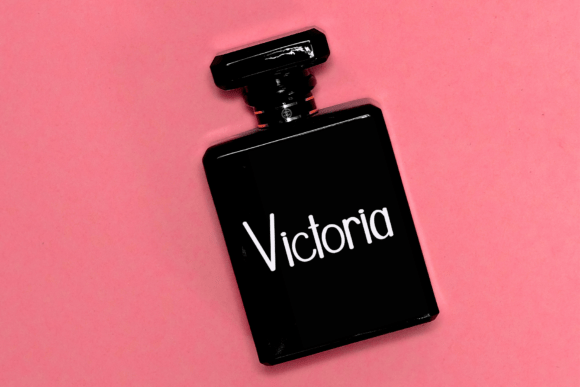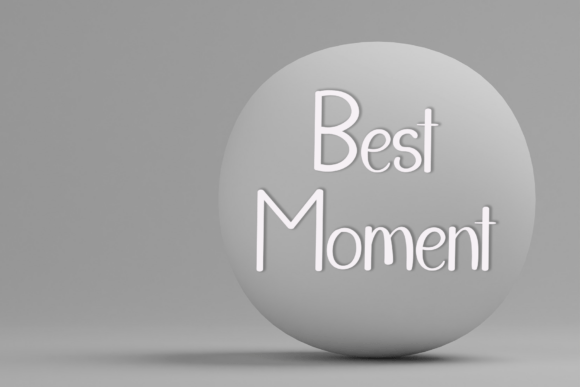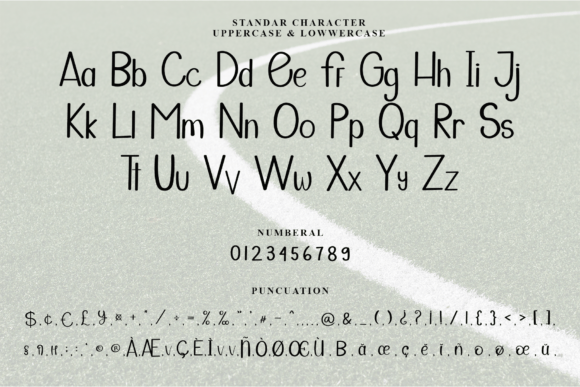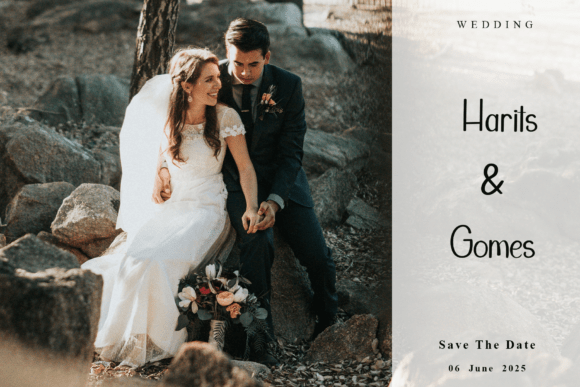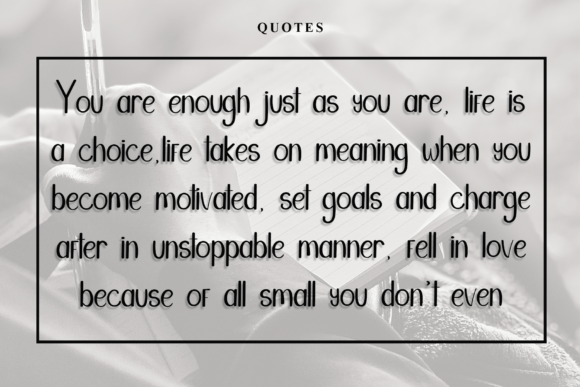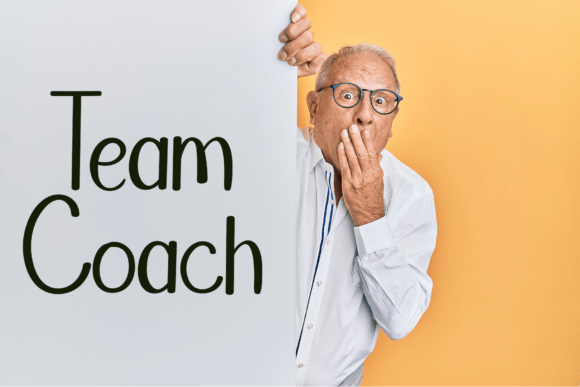
Introducing Football Font: The Perfect Handwritten Font for Your Next Project
Are you looking for a font that can add a simple and natural feel to your next project? Look no further than Football Font, a versatile handwritten font that is perfect for a wide range of applications. From greeting cards to headlines, Football Font is guaranteed to bring a touch of warmth and personality to your designs.
What is Football Font?
Football Font is a simple handwritten font that is designed to be easy to read and versatile. Its clean and natural lines make it perfect for use in a variety of contexts, from formal to informal. The font has a friendly and approachable feel, making it ideal for designers and crafters who want to add a personal touch to their work.
Key Features of Football Font
- Handwritten style: Football Font has a beautiful handwritten style that gives it a personal and unique feel.
- Versatile: The font is versatile and can be used in a wide range of applications, from greeting cards to headlines.
- Easy to read: Football Font is designed to be easy to read, making it perfect for use in body text or headlines.
- Simple and natural feel: The font has a simple and natural feel that makes it perfect for designers and crafters who want to add a touch of warmth to their work.
Applications of Football Font
Football Font is a versatile font that can be used in a wide range of applications, including:
- Greeting cards: Add a personal touch to your greeting cards with Football Font.
- Headlines: Use Football Font to add a touch of warmth and personality to your headlines.
- Body text: Football Font is easy to read and can be used in body text to add a personal touch to your work.
- Signage: The font is perfect for use in signage, including menus, posters, and flyers.
- Digital media: Football Font can be used in digital media, including social media graphics, blogs, and websites.
Benefits of Using Football Font
There are many benefits to using Football Font in your next project, including:
- Unique and personal feel: Football Font has a unique and personal feel that sets it apart from other fonts.
- Easy to read: The font is easy to read, making it perfect for use in body text or headlines.
- Versatile: Football Font can be used in a wide range of applications, from formal to informal.
- Time-saving: The font is pre-designed, saving you time and effort in your design work.
Tips for Using Football Font
Here are some tips for using Football Font in your next project:
- Use it sparingly: Football Font is a bold font, so use it sparingly to add emphasis to your work.
- Pair it with other fonts: Football Font can be paired with other fonts to create a unique and interesting look.
- Experiment with colors: The font looks great in a variety of colors, so experiment to find the perfect color for your work.
- Use it in digital media: Football Font can be used in digital media, including social media graphics, blogs, and websites.
Football Font is a versatile handwritten font that is perfect for designers and crafters who want to add a simple and natural feel to their work. With its clean and natural lines, Football Font is easy to read and can be used in a wide range of applications. Whether you’re creating greeting cards, headlines, or body text, Football Font is guaranteed to bring a touch of warmth and personality to your designs.